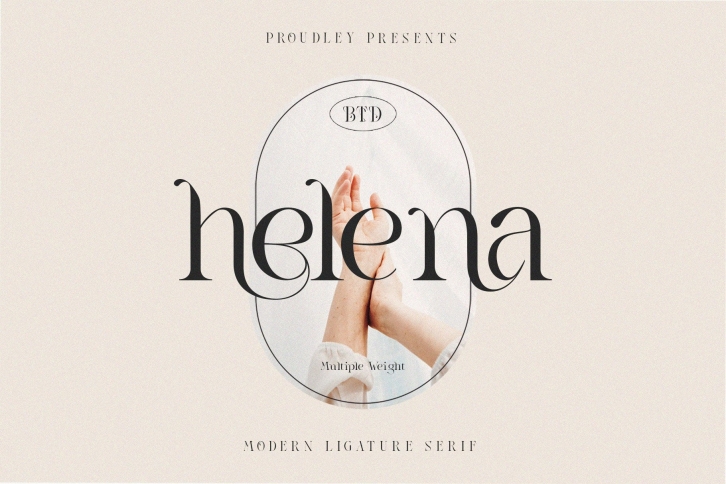
Helena is a stylish and elegant serif font masterfully crafted to become a true favorite. Contemporary and fresh, it is perfect for any design you wish to create. Add it to your creative projects and make them outstanding!